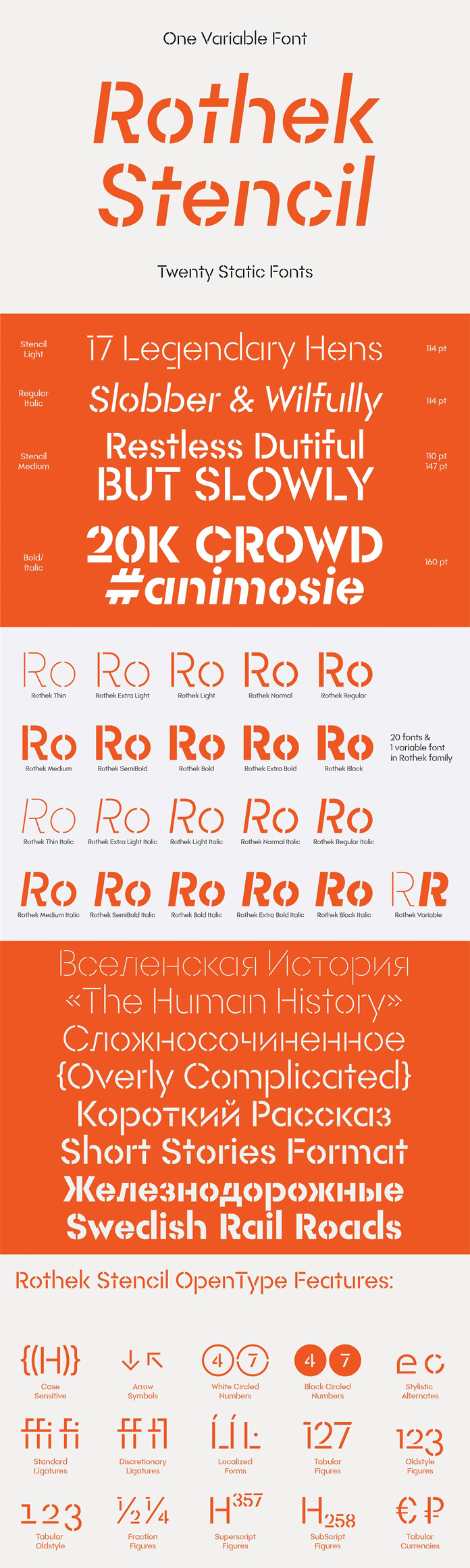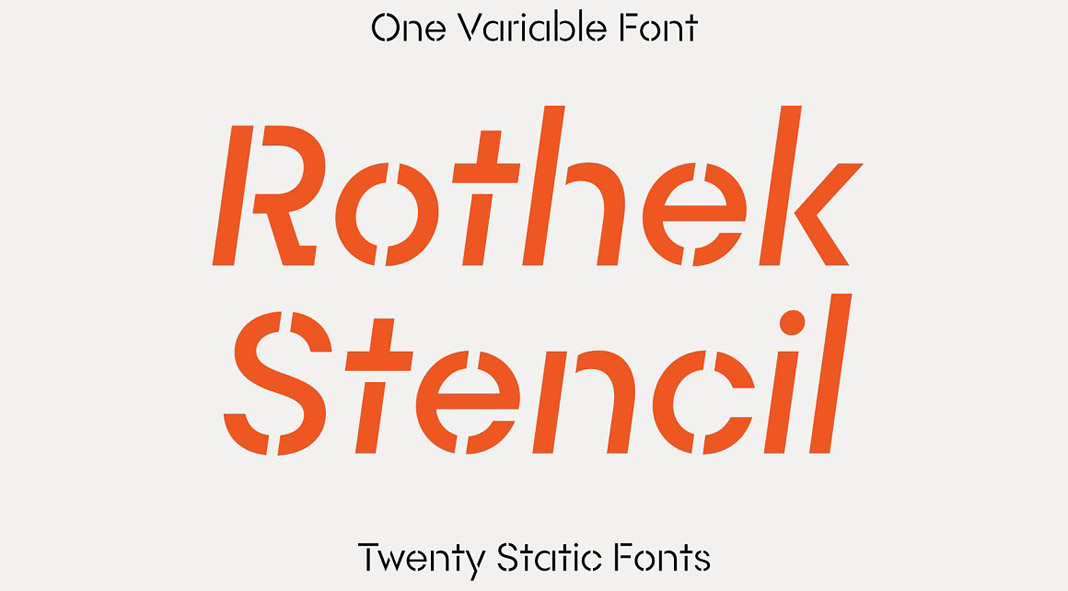
Designed by Evgeny Tantsurin of type foundry Groteskly Yours, Rothek Stencil is a professional font family that comes with one variable font and twenty static styles.
Rothek Stencil is a stenciled, slightly modified version of Rothek, a geometric sans serif originally released through Groteskly Yours. It comes in 20 static styles or as one variable font. Rothek Stencil hosts over 1000 characters supporting 200 languages like most Latin-based languages, Extended Cyrillic, Vietnamese and more.
You can use Rothek Stencil with the original Rothek as a headline font for any project that would utilize a stencil font. While its primary goal was to be distinctive and multitalented when used at larger sizes, it surprisingly works well small enough to serve as body text. Thanks to an abundance of OpenType features, Rothek Stencil is very versatile. It has Case-Sensitive Punctuation, multiple Stylistic Sets, various numerals (Oldstyle, Tabular, Fractions), and many more useful OpenType features.
As mentioned before, Rothek Stencil is a font family that comes with 20 static styles (Thin to Black), each one available in both regular and italic versions. The variable font includes weight and slant axes, making it ideal for web or graphic design. You can purchase the 20 static styles separately or as part of the complete Rothek Stencil font family. Just click on one of the following links to get further information about this new stencil typeface.